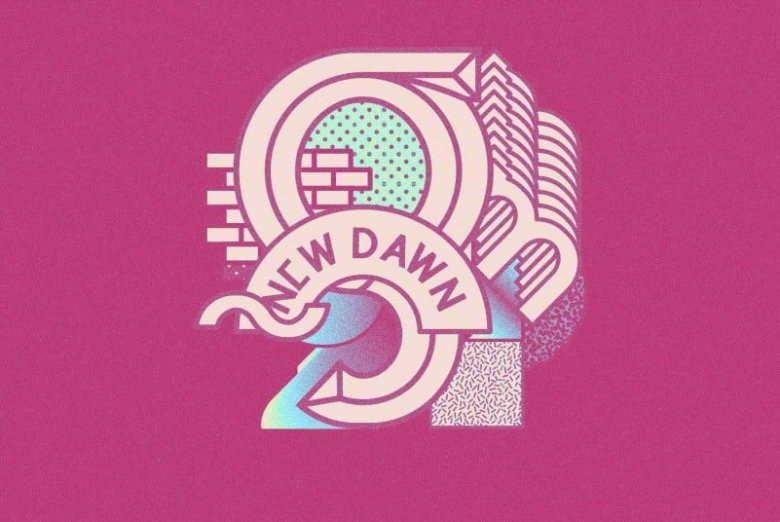
New Dawn Sans Serif Font Demo
New Dawn Sans Serif Font is a distinctive modern sans serif typeface. Made from font designer named Cahya Sofyan. It offers rich solutions to your creative projects with its alternative versions. You can use Sans serif font feature in many areas easily. You can create your text with regular characters, and highlight bold characters and titles.
It is very suitable for books and magazines, magazine covers, editorials, headlines, websites, logos, invitations, branding, advertising and more.